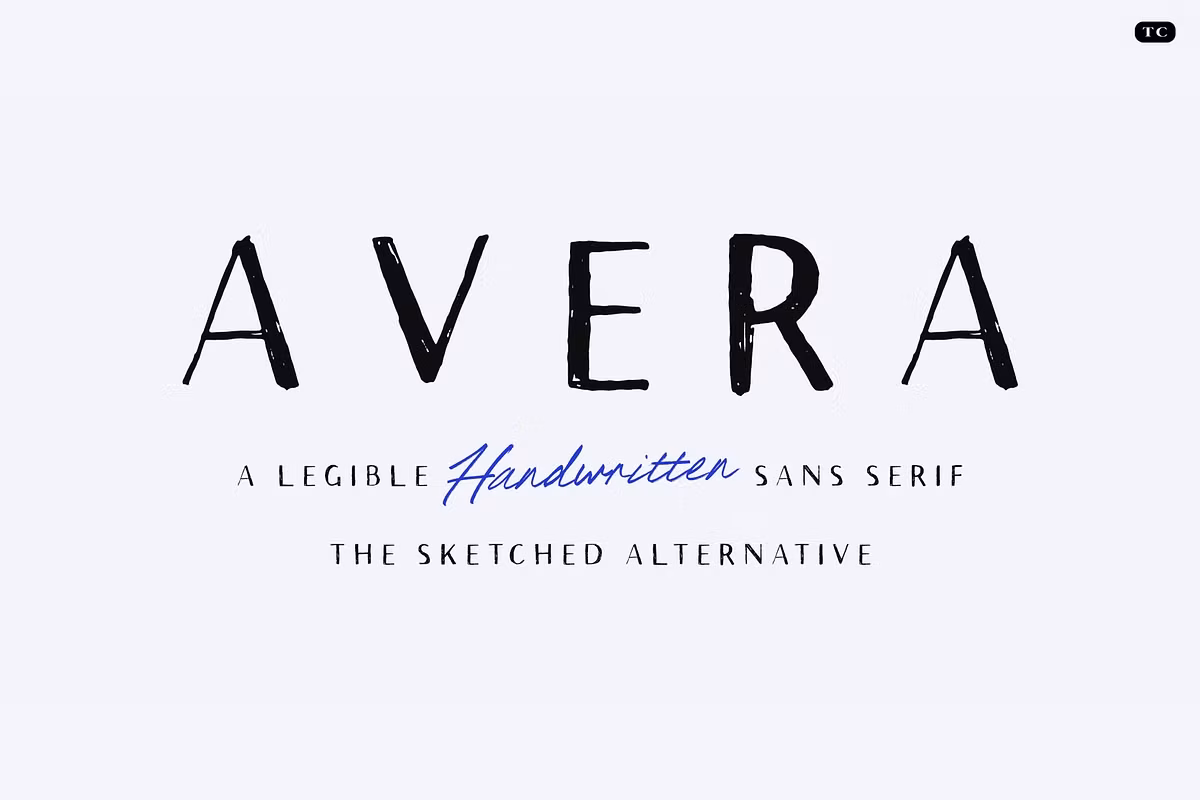
Avera Sans Sketch – Sketched Font Free Download is a unique and creative typeface that blends modern sans serif design with hand-drawn sketch elements. This font features a rough, unfinished look that adds an organic, artistic touch to any design. Ideal for creative branding, posters, logo design, and illustrations, Avera Sans Sketch gives your typography a handmade, personalized feel.
Its irregular lines and sketched texture make it perfect for designs that need a quirky or creative edge, while still maintaining clarity and readability. Whether you're designing for the art community, indie brands, or casual digital projects, this font adds an authentic, crafted look.
Make your designs stand out with the charm of hand-drawn detail using Avera Sans Sketch – Sketched Font Free Download. Download the demo today and add a fresh, creative touch to your next project.